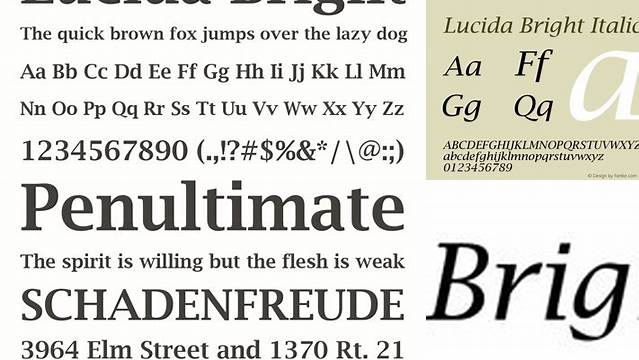
Lucida Bright Italic Free Font: Your Design Guide
Discovering the Allure of Lucida Bright Italic Font
Alright, design enthusiasts, let's dive into the wonderful world of Lucida Bright Italic, a font that's been making waves and turning heads in the design community. First off, if you are looking for a font that screams elegance and readability, you've stumbled upon the right place. Lucida Bright Italic is not just a font; it's a statement, a subtle nod to sophistication that can transform your projects from good to absolutely stunning. This guide will walk you through everything you need to know about this fantastic typeface, from its history and characteristics to how you can get your hands on it for free. Seriously, it's free, which is like finding a pot of gold at the end of a rainbow for us designers, right? Think about all the possibilities! You can use it for everything from professional documents and personal projects to creative endeavors.
Let's get into the details. Lucida Bright Italic is a member of the Lucida family, which was designed by Kris Holmes and Charles Bigelow. These two are legends in the typography game, and their work is a testament to their keen eye for detail and design. The font's italic style adds a touch of flair and personality that the regular Lucida Bright might miss. The slight slant and the graceful curves of the letters give it a distinct look that sets it apart. One of the standout features of Lucida Bright Italic is its incredible readability. Its design ensures that text remains clear and easy to read, even at smaller sizes, making it perfect for body text in longer documents or presentations. Whether you are crafting a formal report or designing a personal blog, this font adapts seamlessly to your needs. And let's not forget the versatility factor; it plays well with others! It complements a wide variety of other fonts, which makes it an excellent choice for pairing with other typefaces to create visual interest and contrast in your designs. Choosing the right font can be a game-changer, and Lucida Bright Italic is an ace in the hole. Consider it when you're looking to elevate your designs with a touch of elegance and clarity that will make your content shine. With its timeless design and impressive legibility, Lucida Bright Italic is more than just a font; it's an investment in your creative endeavors. So, get ready to explore its potential and see how it can make your projects stand out in the best way possible. We are here to provide you with the best tips and tricks, guys!
The Rich History and Characteristics of Lucida Bright Italic
Let's rewind a bit and uncover the roots of Lucida Bright Italic. The Lucida family, as we know, was born from the minds of Kris Holmes and Charles Bigelow, two typographers who had a clear vision of creating a highly legible and versatile typeface. Their collaboration led to a font that would be used across various applications, from print to digital media. Lucida Bright Italic is a direct descendant of this family, carrying with it the same DNA of clarity, readability, and elegance. One of the most important characteristics of this font is its exceptional legibility, which makes it a prime choice for long-form content. The design ensures that each letter is easily distinguishable from the others, reducing eye strain and allowing readers to focus on the content. This is a big deal, especially when you are designing documents or websites where the text is the main focus. The italic style of Lucida Bright adds a sense of dynamism and flair to your text. It's not just a simple slant; the letters are carefully crafted to maintain their readability while adding a touch of personality. This makes it ideal for emphasizing certain words or phrases, creating visual interest, or adding a sophisticated edge to your designs.
Now, let's talk about its style. The serifs on Lucida Bright Italic are elegant and refined, adding to the overall aesthetic appeal. The proportions of the letters are carefully balanced, creating a harmonious look and feel. This attention to detail is what makes the font so pleasing to the eye and why it works so well in a variety of contexts. Lucida Bright Italic is also very versatile. Its design allows it to work seamlessly across a wide range of projects. Whether you're working on a website, a book, a presentation, or any other form of content, this font is a reliable choice. Also, it plays well with other fonts. If you are someone who loves experimenting with different fonts in order to find the perfect look, this font is your best friend. Its neutral yet elegant style allows it to complement a variety of other fonts, giving you the creative freedom to explore different design combinations. It is a true classic, and its qualities make it a timeless choice for any design project. The key is its adaptability, ensuring that your work remains engaging and accessible. Remember, choosing the right font can drastically improve your design's overall effectiveness, and Lucida Bright Italic has the potential to do just that!